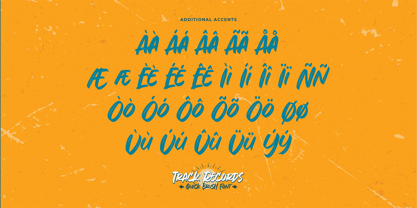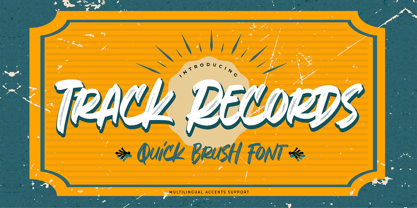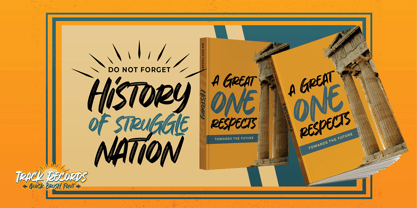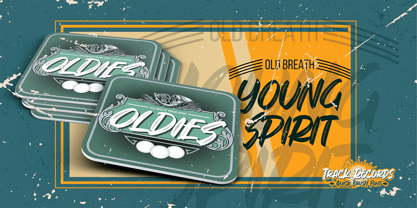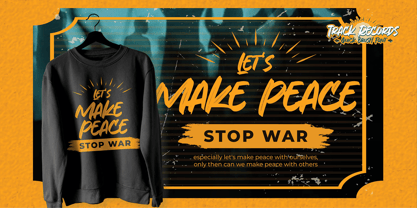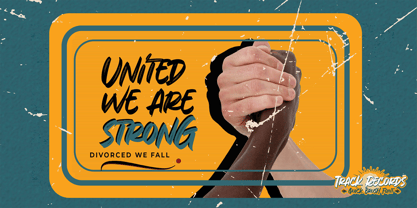
Track Records
von Almarkha Type
Die Schriftfamilie Track Records wurde von Abdul Malik Wisnu entworfen und von Almarkha Type veröffentlicht. Track Records enthält 1 Stile. Mehr über diese Familie
TRACK RECORDS is an energetic, wild, and expressive brush typeface crafted with fast, dynamic strokes. Designed to deliver bold and spontaneous visual impact, this font brings a raw, artistic, and high-movement aesthetic—perfect for projects that demand attitude and intensity. With natural brush textures and irregular hand-painted strokes, TRACK RECORDS offers a powerful artistic presence. Each letter feels alive, making it ideal for designs that embrace a modern, aggressive, and street-art-inspired look.
Designer: Abdul Malik Wisnu
Foundry: Almarkha Type